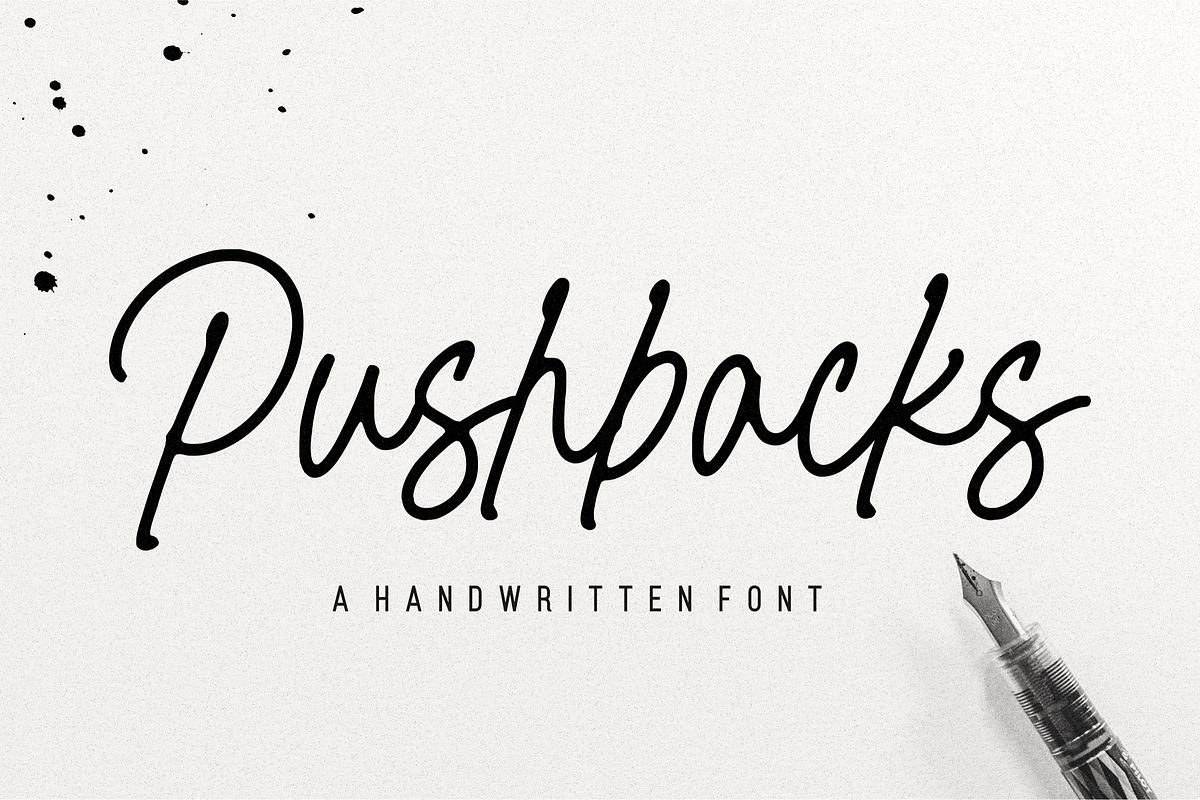
Casual, stylish, and full of personality, Pushbacks - Handwritten Font Free Download is a relaxed script typeface that brings a personal, hand-drawn touch to your designs. Perfect for social media graphics, branding, logos, packaging, and lifestyle blogs, this font adds warmth and authenticity wherever it's used.
With smooth strokes and organic flow, Pushbacks feels natural and expressive—ideal for creators who want their typography to feel approachable and on-trend. It’s also easy to read, making it a great fit for both headings and short body text in creative projects.